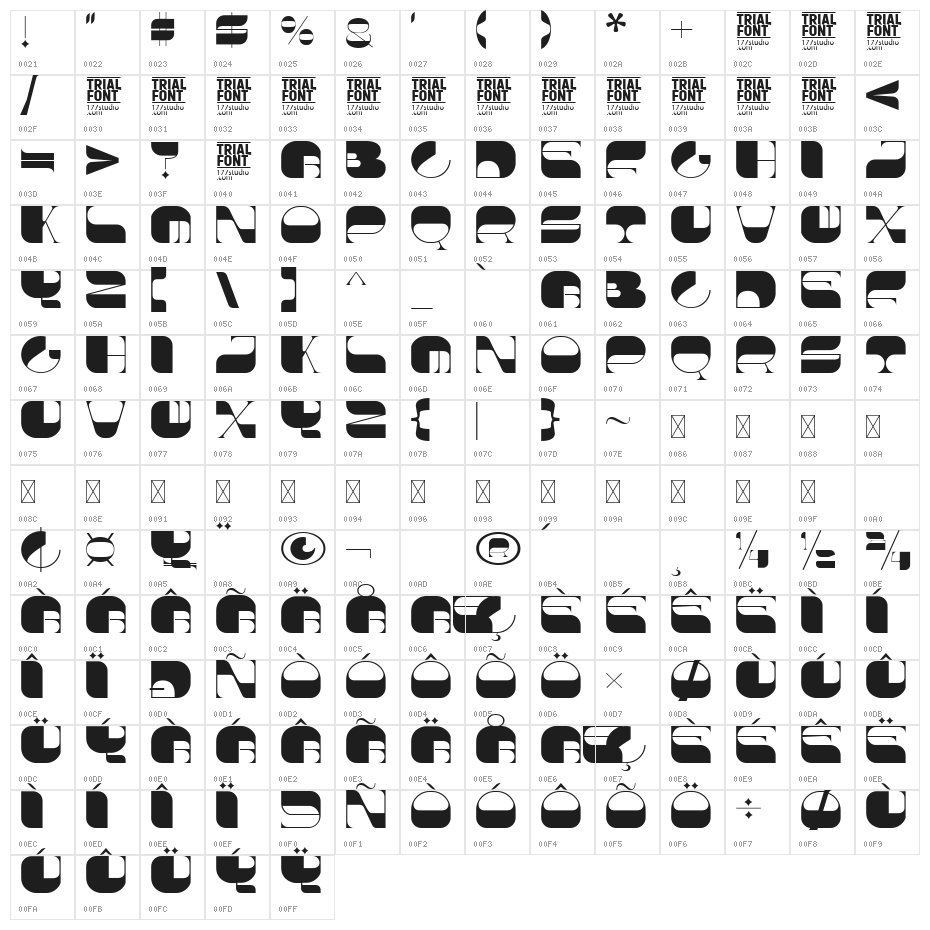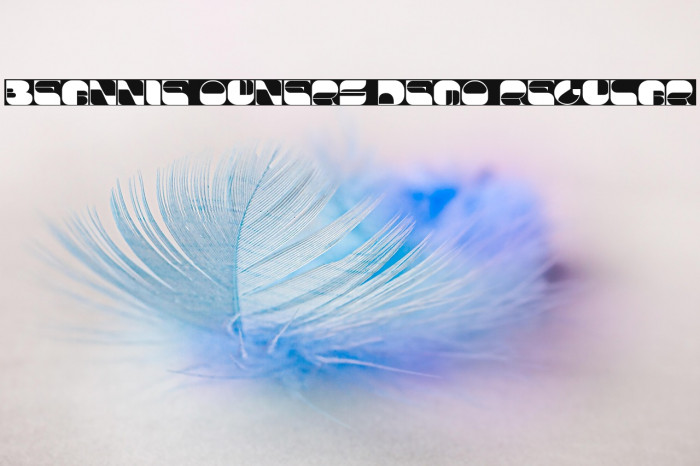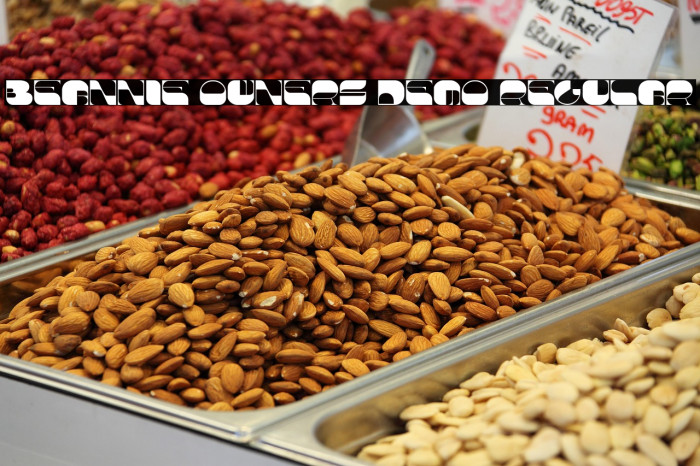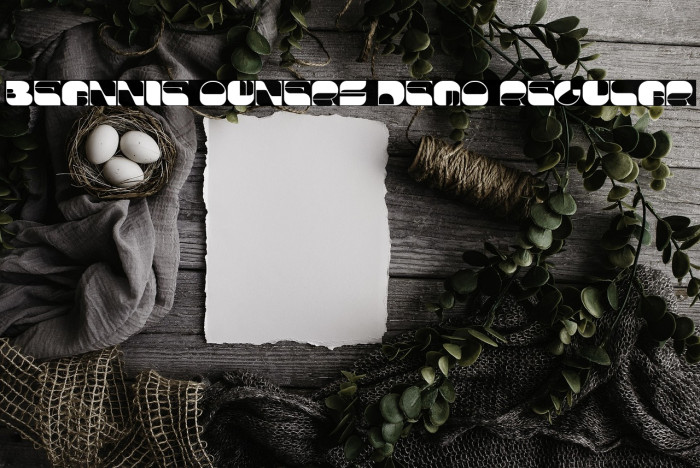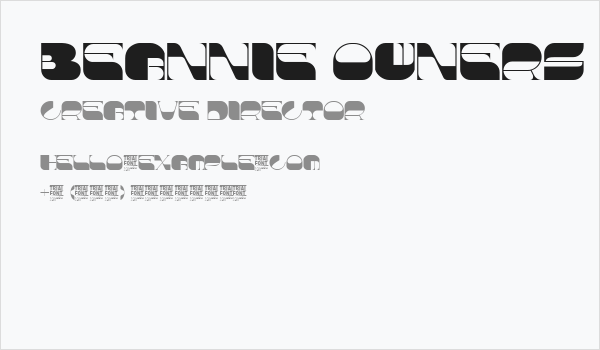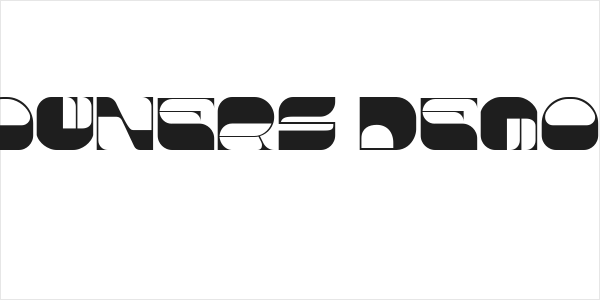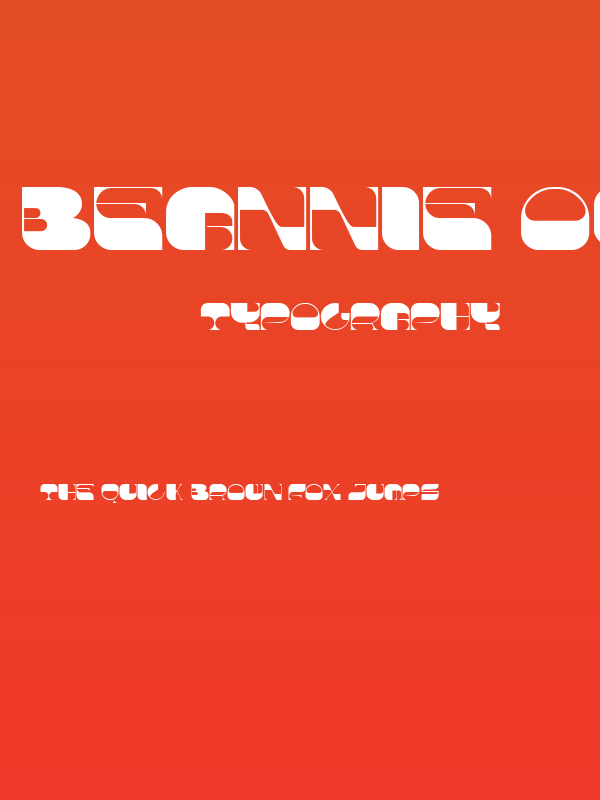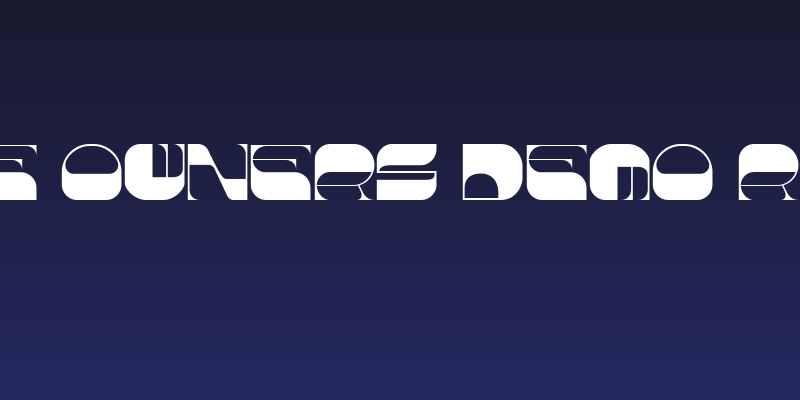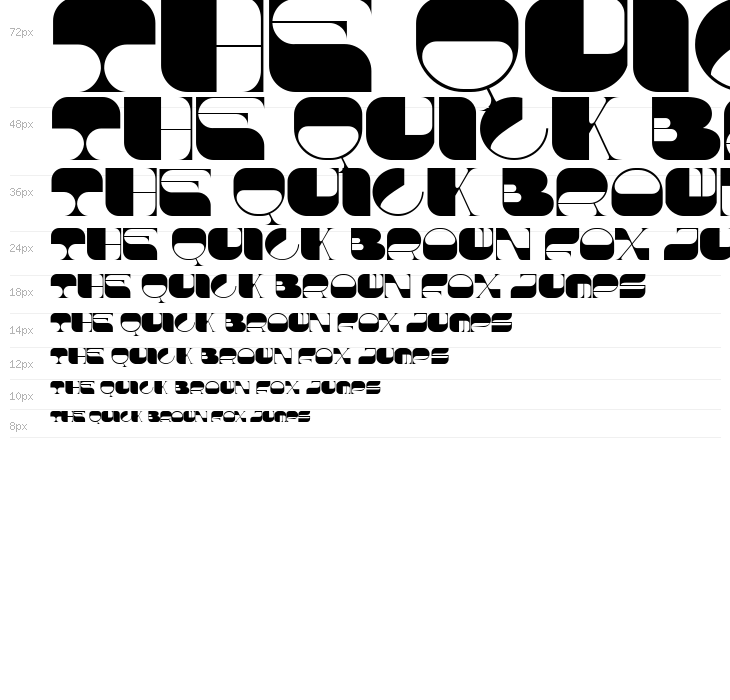
Beannie Owners Demo Regular Font
Beannie Owners Demo Regular Description
This font features a bold and futuristic design with a unique geometric style. The characters are constructed with a combination of thick and thin strokes, creating a high contrast that draws attention. The uppercase letters have a distinct, blocky appearance with sharp angles and curves, while the lowercase letters maintain a similar aesthetic but with a slightly softer touch. The numbers and special characters follow the same design principles, ensuring consistency across the font. Its modern and innovative look makes it suitable for projects that require a standout visual impact.
| Proposed Projects | Ideal for branding, logos, posters, and any design requiring a modern and eye-catching typeface. |